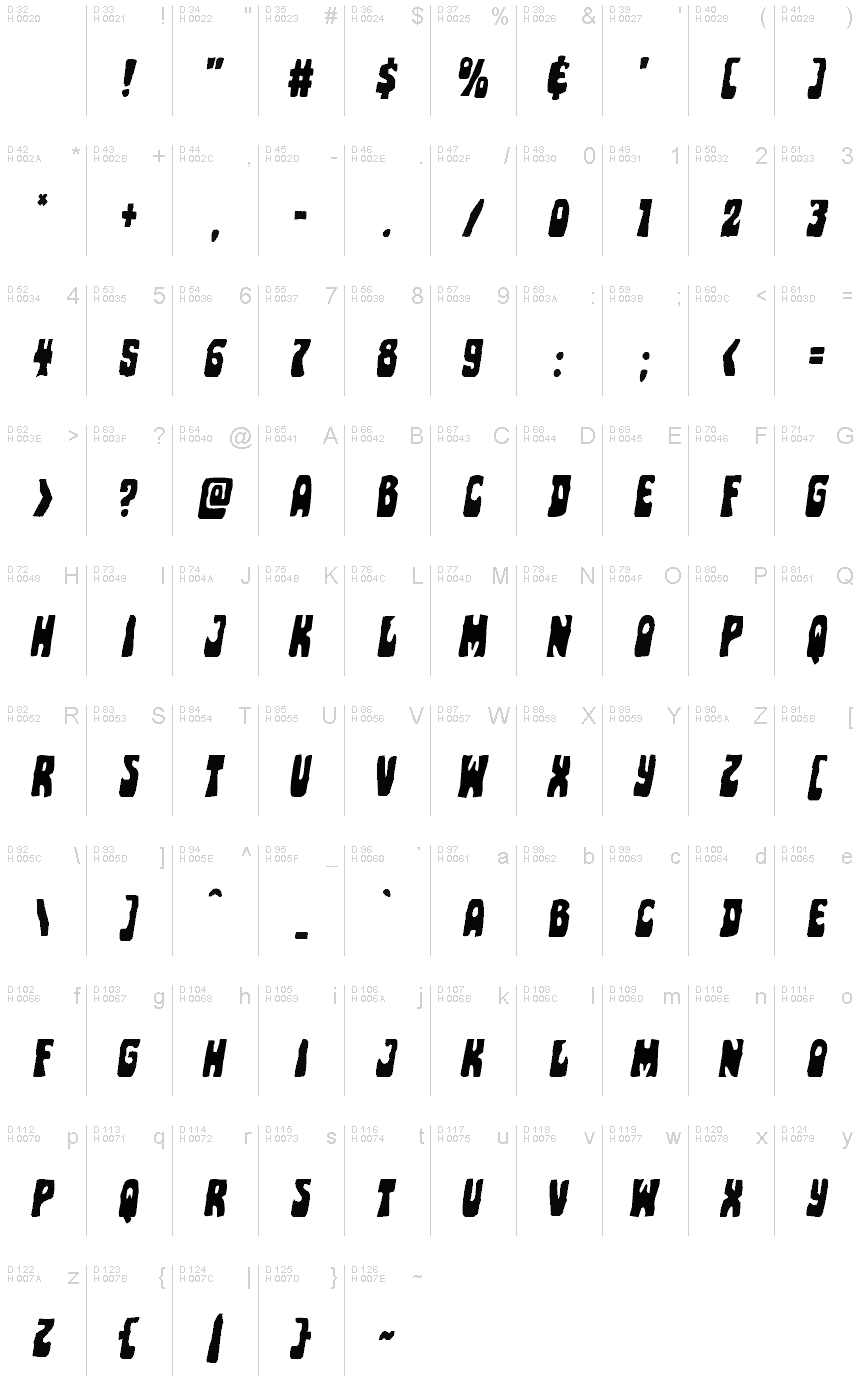
Pocket Monster Italic
Pocket Monster Italic, a daring creation by Daniel Zadorozny, emerges from the Pocket Monster family as an extra-bold display font that commands attention. With its scary aesthetic, this typeface encapsulates a sense of excitement and fear that is palpable in every curve and angle. Designed to leap off the page or screen, it carries a visual weight that makes it ideal for projects looking to leave an indelible impression.
The italicized stance adds a dynamic feel to the font, suggesting movement and action—perfect for evoking the thrill of monster-themed entertainment or Halloween festivities. Its heavy strokes and slightly rugged finish give it a raw edge that can enhance horror movie posters, video game titles, or any creative endeavor aiming to stir up emotions.
The uniqueness of Pocket Monster Italic lies in its ability to balance boldness with playfulness. The exaggerated forms are not just intimidating but also exude an energetic vibe that could animate branding campaigns or event promotions seeking to stand out. This font is not merely seen; it is experienced—a powerful player in any designer's toolkit when the goal is to make a strong statement without uttering a single word.
The italicized stance adds a dynamic feel to the font, suggesting movement and action—perfect for evoking the thrill of monster-themed entertainment or Halloween festivities. Its heavy strokes and slightly rugged finish give it a raw edge that can enhance horror movie posters, video game titles, or any creative endeavor aiming to stir up emotions.
The uniqueness of Pocket Monster Italic lies in its ability to balance boldness with playfulness. The exaggerated forms are not just intimidating but also exude an energetic vibe that could animate branding campaigns or event promotions seeking to stand out. This font is not merely seen; it is experienced—a powerful player in any designer's toolkit when the goal is to make a strong statement without uttering a single word.